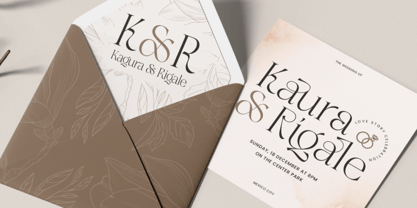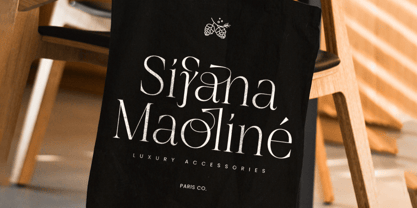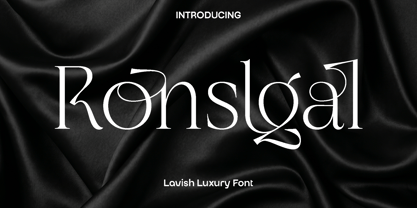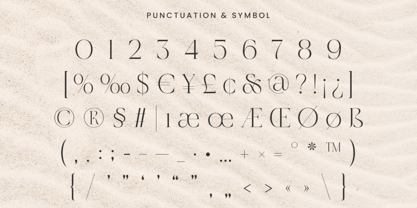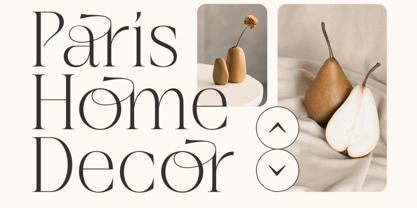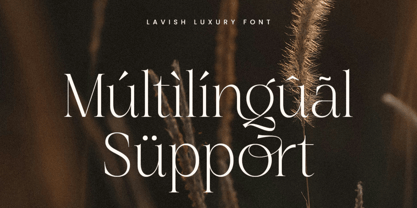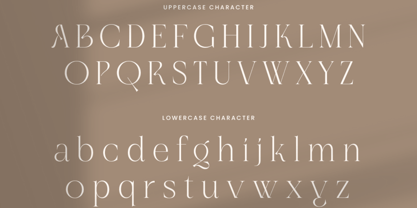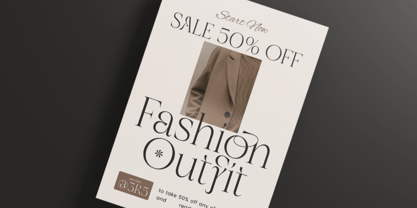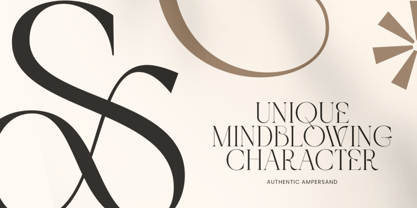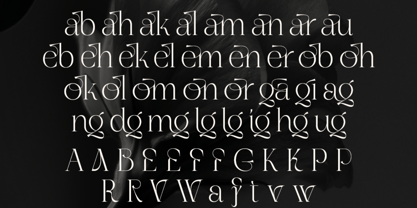
Ronslgal
von Only Fonts
Die Schriftfamilie Ronslgal wurde von Olivia Love entworfen und von Only Fonts veröffentlicht. Ronslgal enthält 1 Stile. Mehr über diese Familie
Ronslgal – Lavish Luxury Font Ronslgal is a lavish luxury font designed to express elegance, refinement, and timeless beauty. Created for designers who value sophistication, this typeface draws inspiration from classic calligraphy and high-end fashion aesthetics. Its graceful curves, balanced proportions, and delicate detailing come together to form a font that feels both prestigious and modern, making every word appear polished and intentional. Ronslgal shines in projects that demand a premium visual identity. It is perfectly suited for luxury branding, logo design, editorial layouts, wedding invitations, and upscale packaging. Whether used for bold headlines or refined typographic accents, the font maintains clarity while delivering a rich and stylish presence. Its elegant character makes it especially effective for fashion labels, beauty products, and exclusive event promotions. The versatility of Ronslgal allows it to adapt seamlessly across both print and digital designs. It brings a sense of warmth and sophistication that enhances the overall visual experience, helping your work stand out with confidence and charm. Every letterform has been carefully crafted to create harmony and flow, ensuring a consistent and luxurious look across all applications. Ronslgal is more than just a typeface; it is a statement of style and class. It transforms ordinary text into a refined visual experience, making it an essential addition to any designer’s collection focused on elegance and high-quality presentation. Ronslgal Lavish Luxury Font Features: • Elegant and unique character designs • Punctuation, numbers, and symbols • Uppercase and lowercase • OpenType features • Multilingual support for 50 plus languages
Designer: Olivia Love
Foundry: Only Fonts